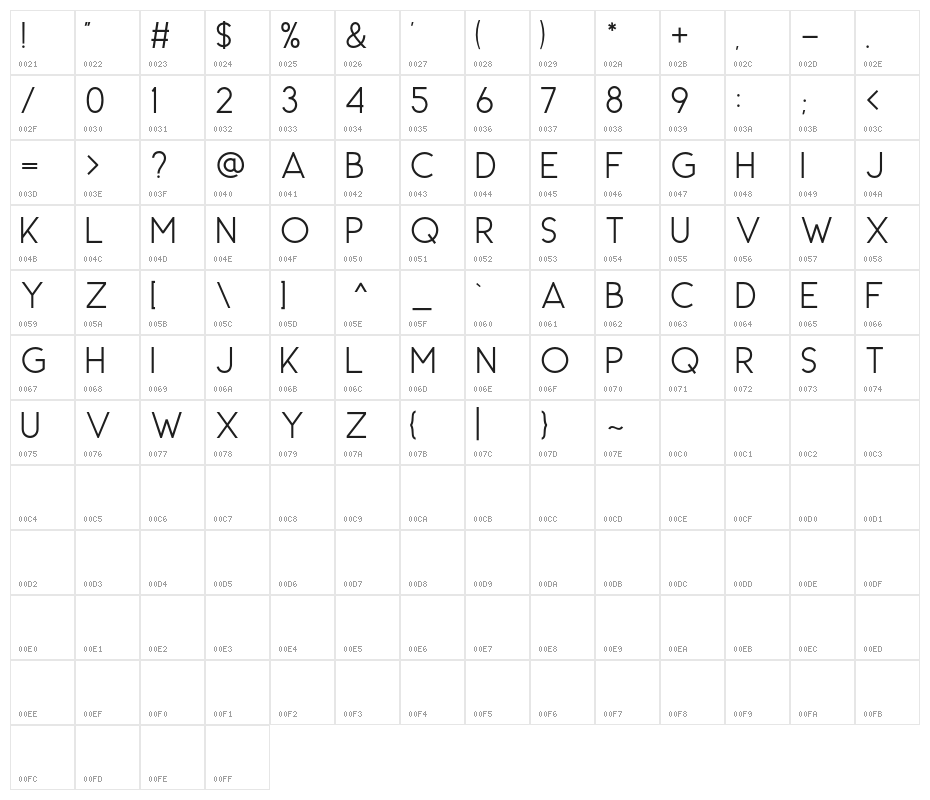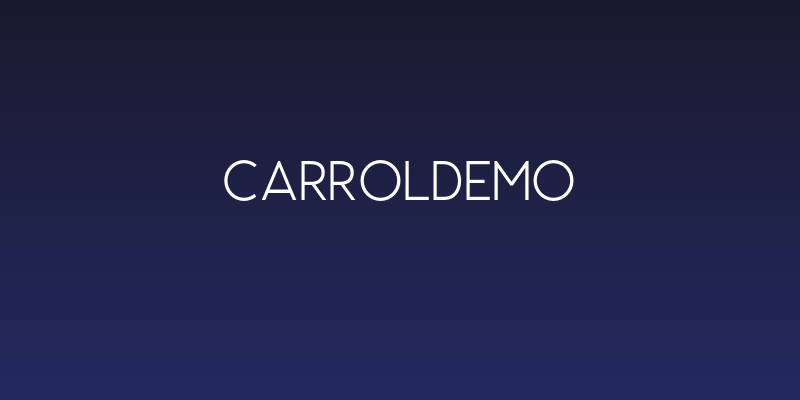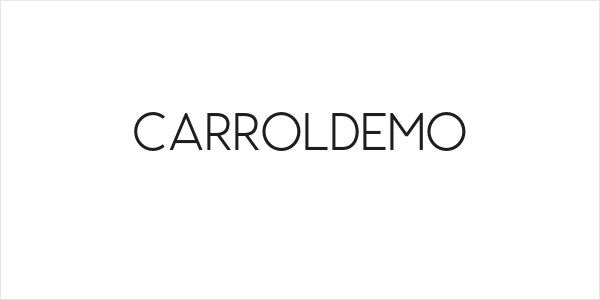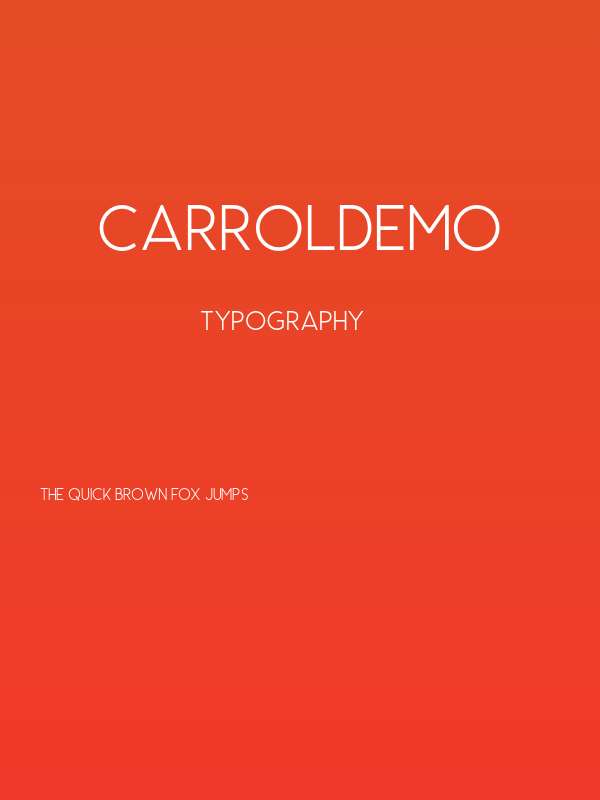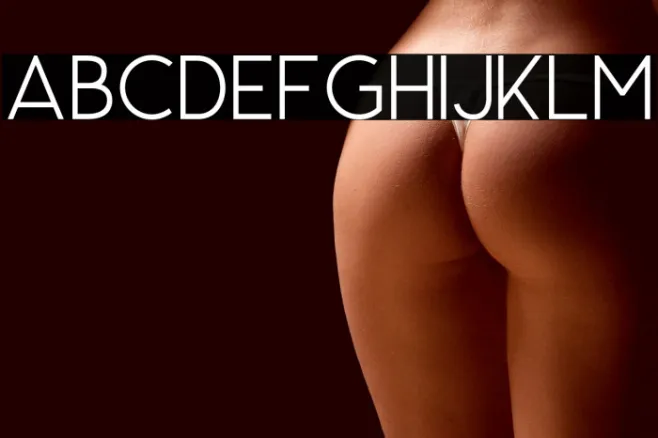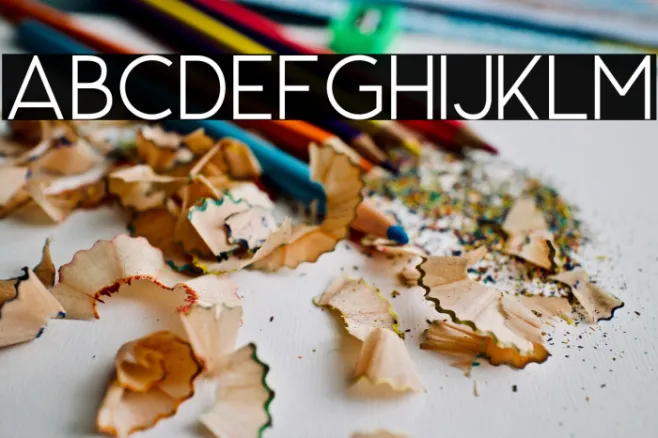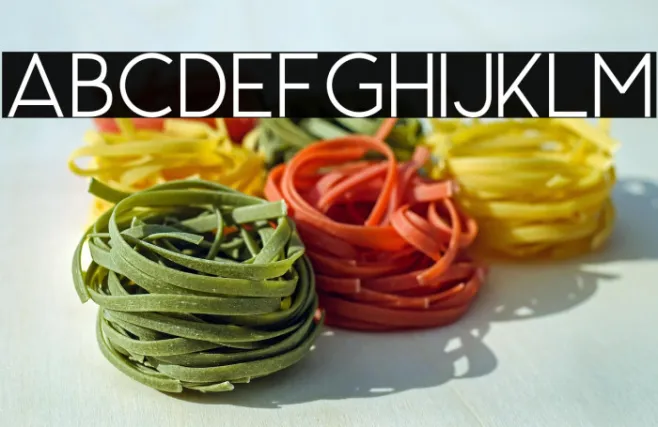
CarrolDEMO Font
CarrolDEMO Description
This font features a clean and modern sans-serif style with uniform stroke widths, giving it a sleek and contemporary appearance. The characters are well-proportioned and maintain a consistent height, which contributes to its readability. The uppercase and lowercase letters are designed with simplicity in mind, avoiding any unnecessary embellishments. The numerals are clear and distinct, making them easily distinguishable. Special characters are included, maintaining the same minimalist aesthetic. This font is versatile and can be used in various design contexts where clarity and modernity are desired.
| Proposed Projects | Ideal for branding, web design, corporate materials, and editorial layouts. |